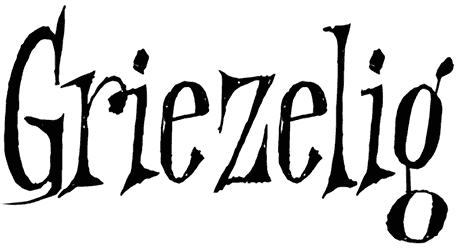
Griezelig Font
You can add evil witches, spiders, and other scary elements to your writing with Griezelig. This magic font comes in handy when planning a special discount event to increase sales through your website, and you need to know which font to use.
Sharp edges, narrow lines, and crooked letters are synonymous with excitement, which can create a printed or digital masterpiece. To boo your visitors, press the download button, but note that you don’t use numbers 4 and 5 for your projects.